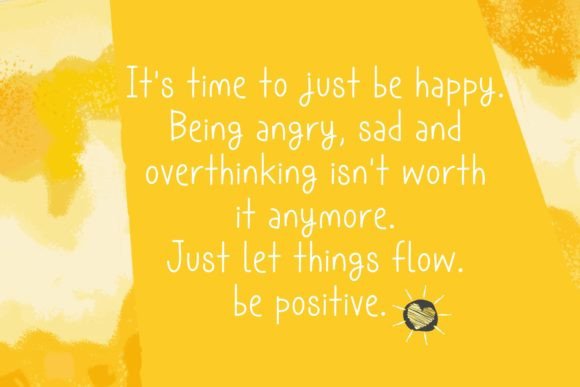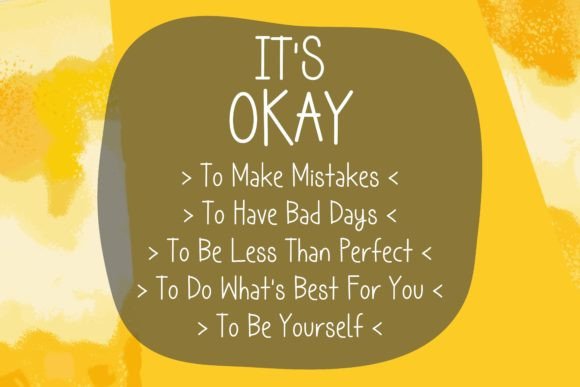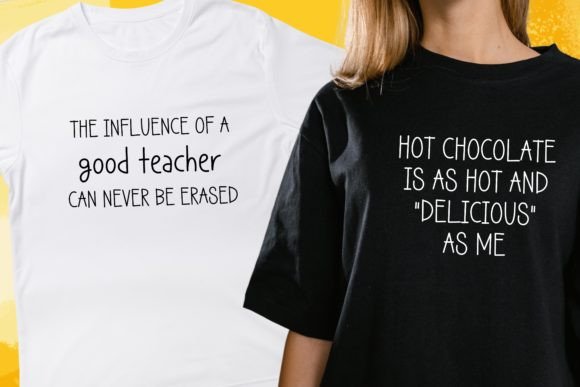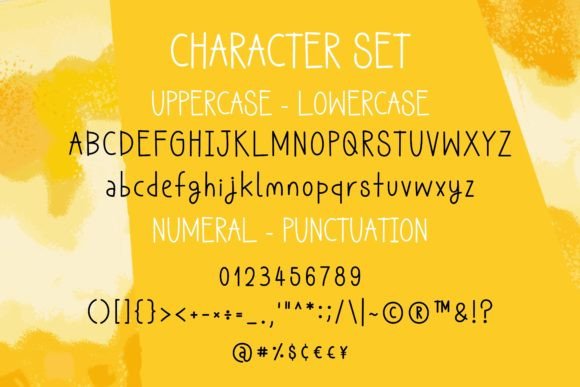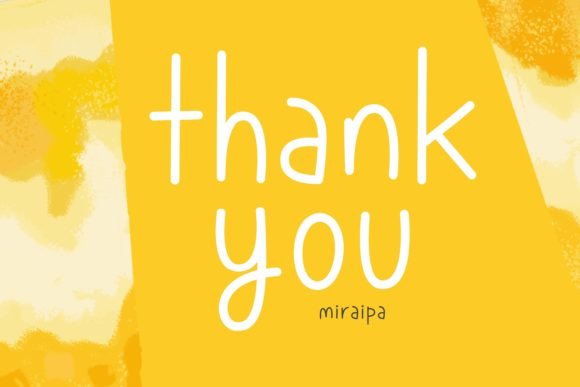
Introduction to Mango Yogurt Font
Have you ever been working on a creative project, pouring your heart and soul into it, only to feel like something is missing? You’ve got the perfect design, but it needs that extra special something to bring it to life. That’s where the perfect font comes in. Introducing the Mango Yogurt Font, a delightful and charming handwritten sans serif font that’s sure to add a friendly touch to any of your DIY projects.
This beautiful font is a treasure trove of creativity, waiting to be unleashed on your next design. With its high-quality design and transparent background, it’s the perfect addition to any project, from Easter invitations to Fall posters. Whether you’re a seasoned designer or just starting out, the Mango Yogurt Font is a valuable resource that will help you elevate your designs and make them truly unforgettable.
- Unique, hand-drawn style that adds a personal touch to any design project.
Honest Review: Mango Yogurt Font
I recently stumbled upon the Mango Yogurt Font while searching for a free design resource for a creative project. Initially, I was drawn to its playful and quirky vibe, which I thought would be perfect for a fun and modern design.
- ✨ The font’s unique character set and styling make it a great addition to any design project that requires a bit of personality.
- ⚠️ The font’s legibility can be affected when used in smaller sizes or with complex layouts.
Overall, I’m impressed with the Mango Yogurt Font‘s high quality and potential for creative projects. While it may have some limitations, it’s definitely worth considering for designers looking for a unique and free design resource.
For optimal results, pair the Mango Yogurt Font with a clean and simple design. Use it sparingly to avoid overwhelming the viewer. Experiment with different font sizes, colors, and combinations to find the perfect balance for your creative project.
Common Use Cases for Mango Yogurt Font
The Mango Yogurt Font is perfect for social media graphics, blog posts, and marketing materials. Use it to create eye-catching headlines, titles, and emphasis text that grab the viewer’s attention. This font is also great for branding and logo design, adding a unique touch to your visual identity.